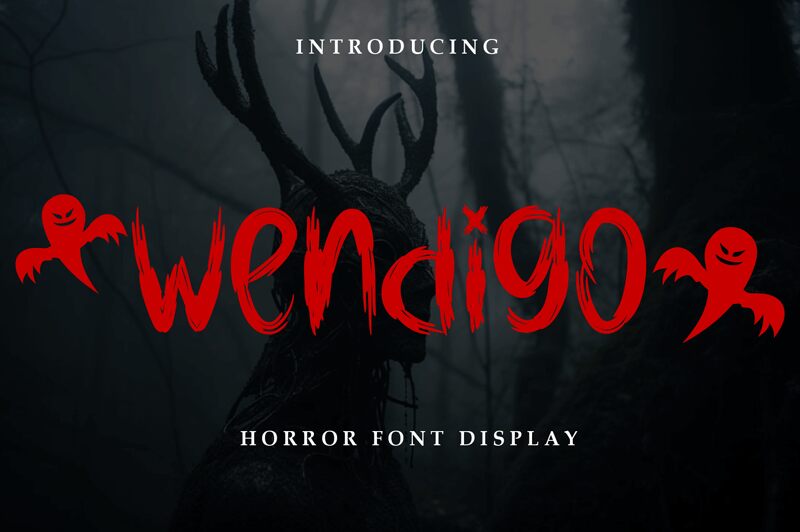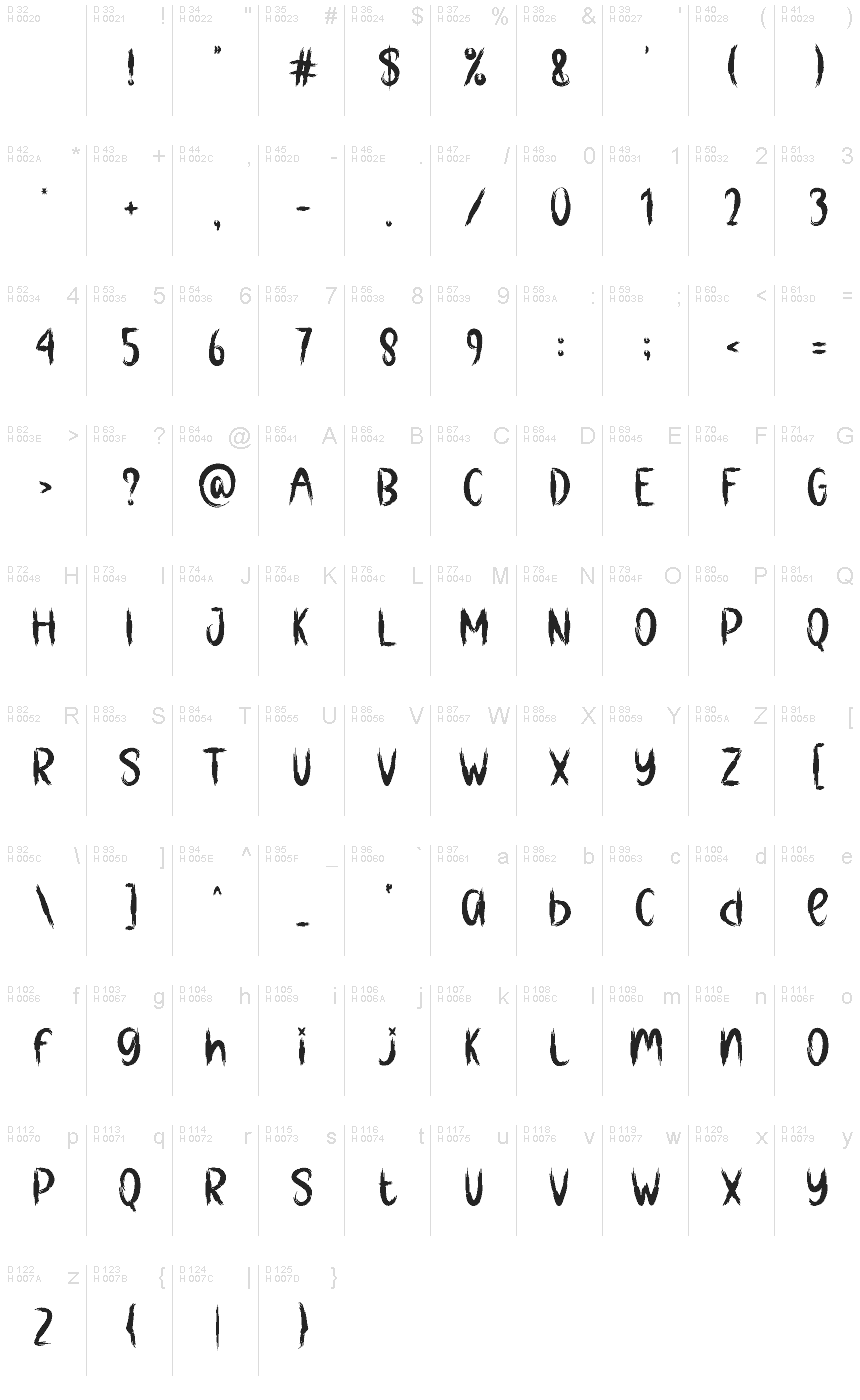
Wendigo font is a grungy and textured typeface designed by Andi Moz, perfect for creating a haunting atmosphere. This edgy and expressive font carries a brush-like style, making it suitable for art projects with Halloween or horror themes. Inspired by mystery and fear, the characters have a distressed design that adds an extra feel of creepiness to any title or headline.